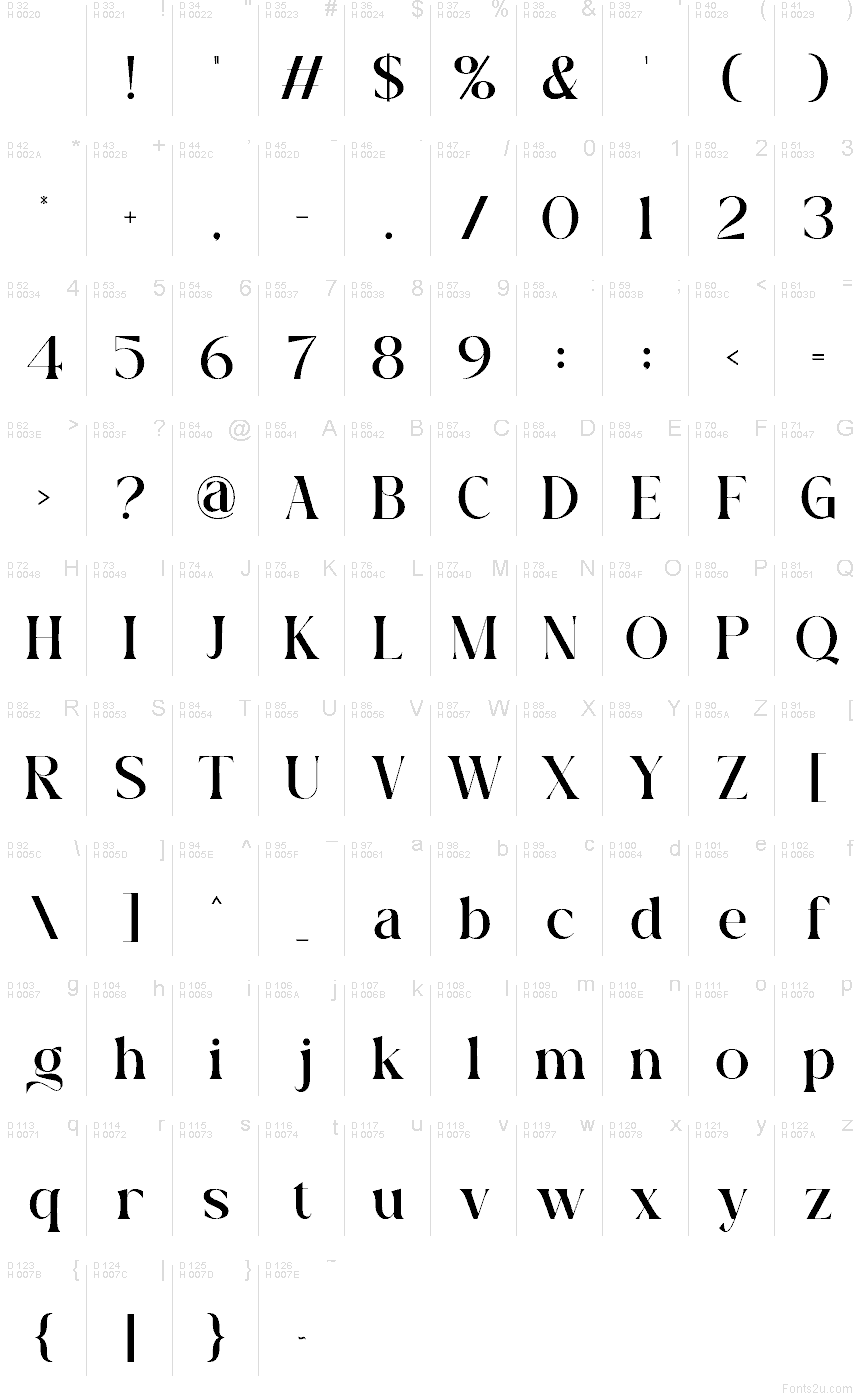
Alikro
Alikro font by ErmediaStudio is a free serif typeface with a striking, almost sculptural rhythm. The letters look carved from ink, with broad, velvety strokes sliced by sudden, razor-thin cuts that give each word a dramatic silhouette. There’s a fashion-magazine elegance here, but also a slightly experimental edge that keeps it from feeling nostalgic or stuffy.
Using Alikro, headlines feel cinematic and names or short phrases instantly take on a luxe, editorial tone. This free font shines on branding for beauty and perfume, magazine covers, invitations, packaging, and bold website hero graphics where you want a strong first impression. Keep it large to let the shapes breathe, and pair Alikro with a simple geometric sans for body text to balance its expressive curves.